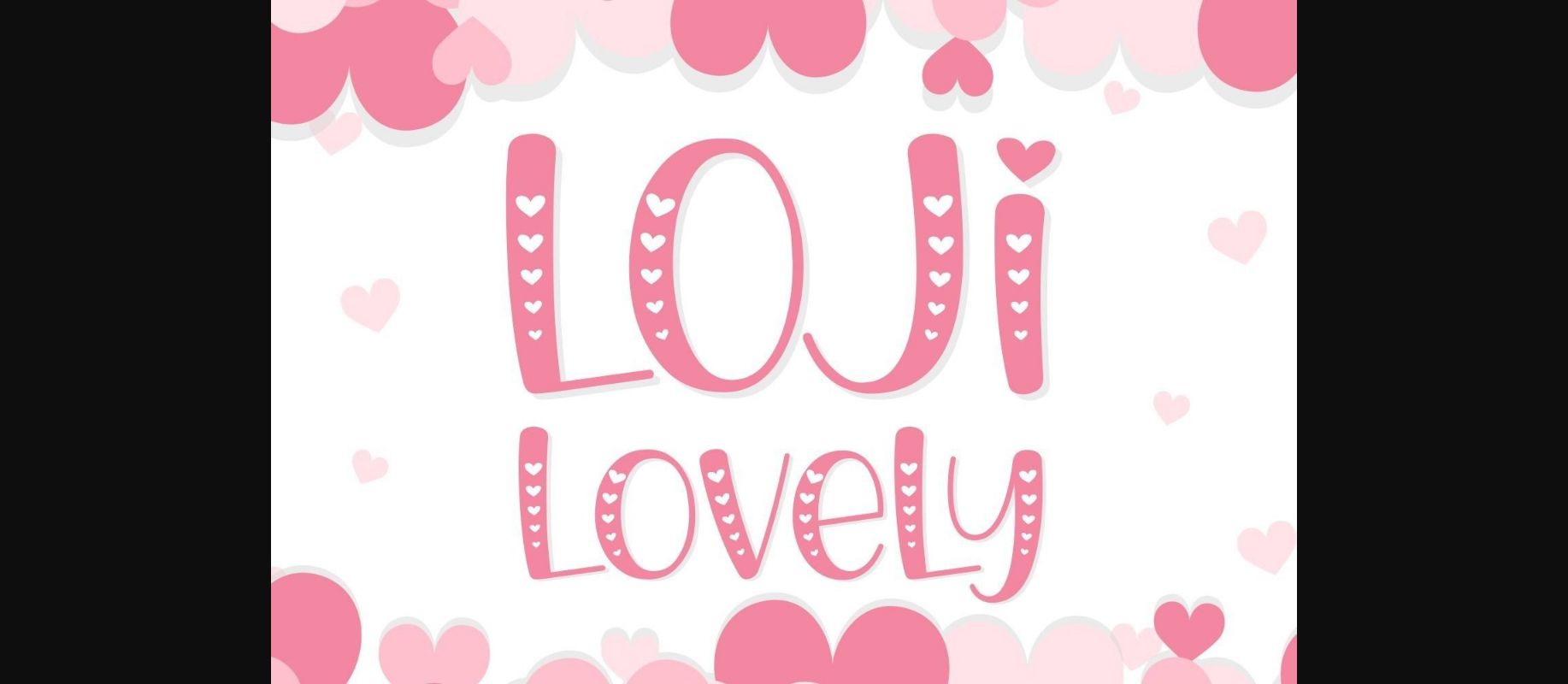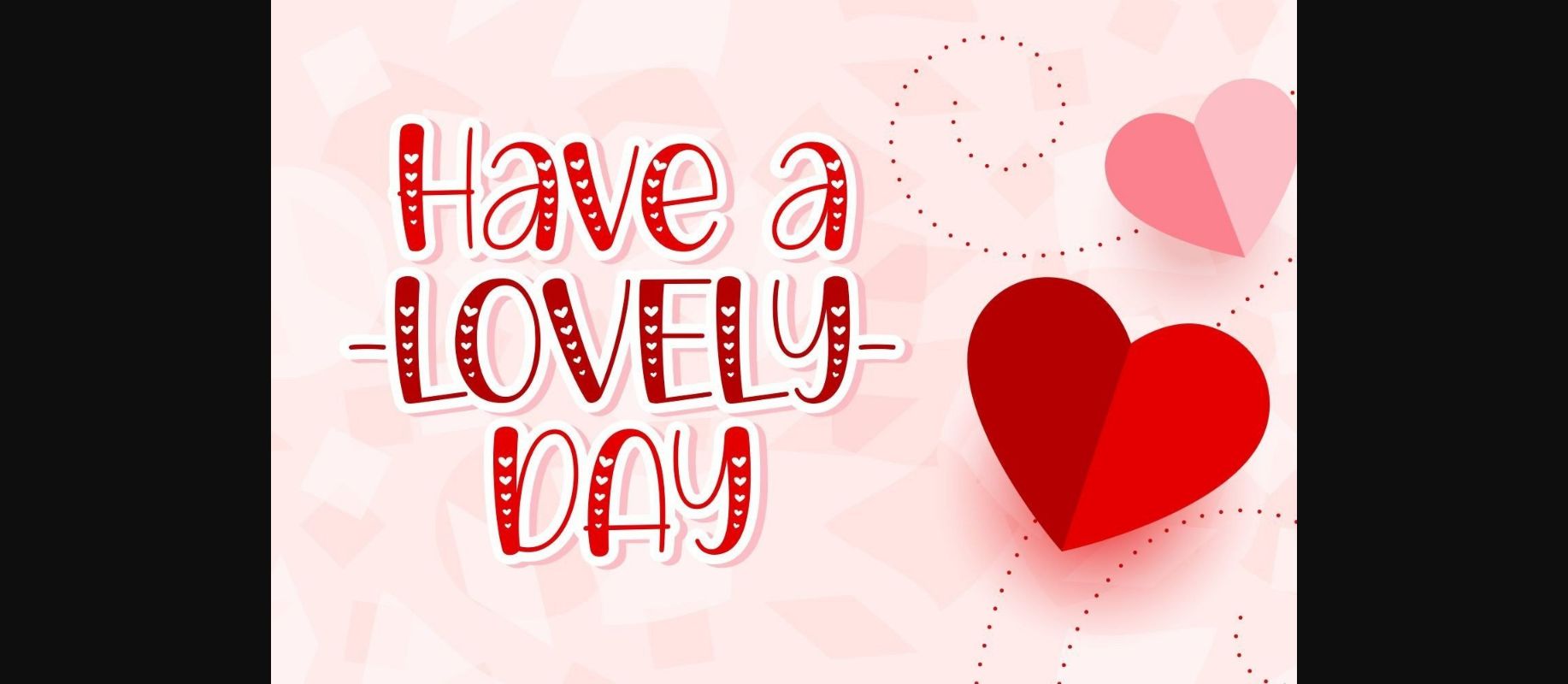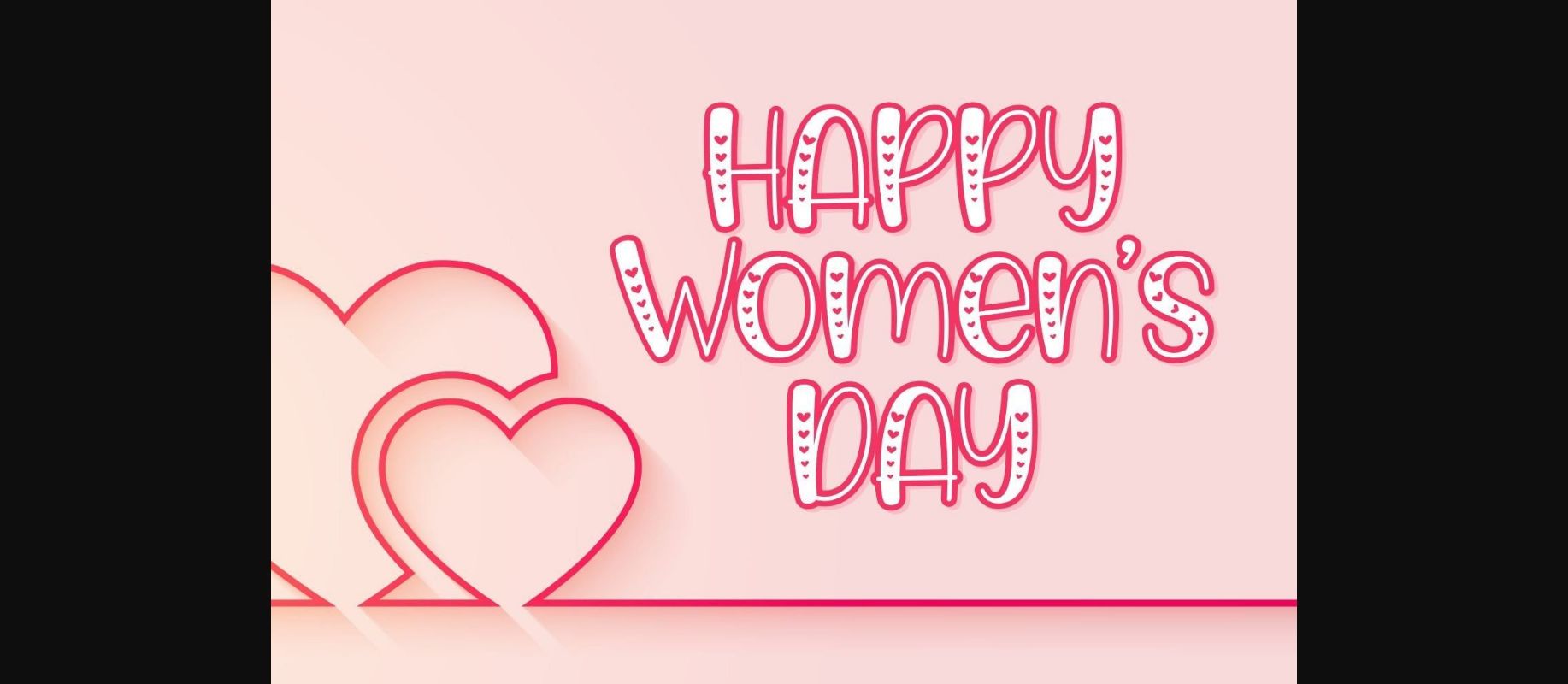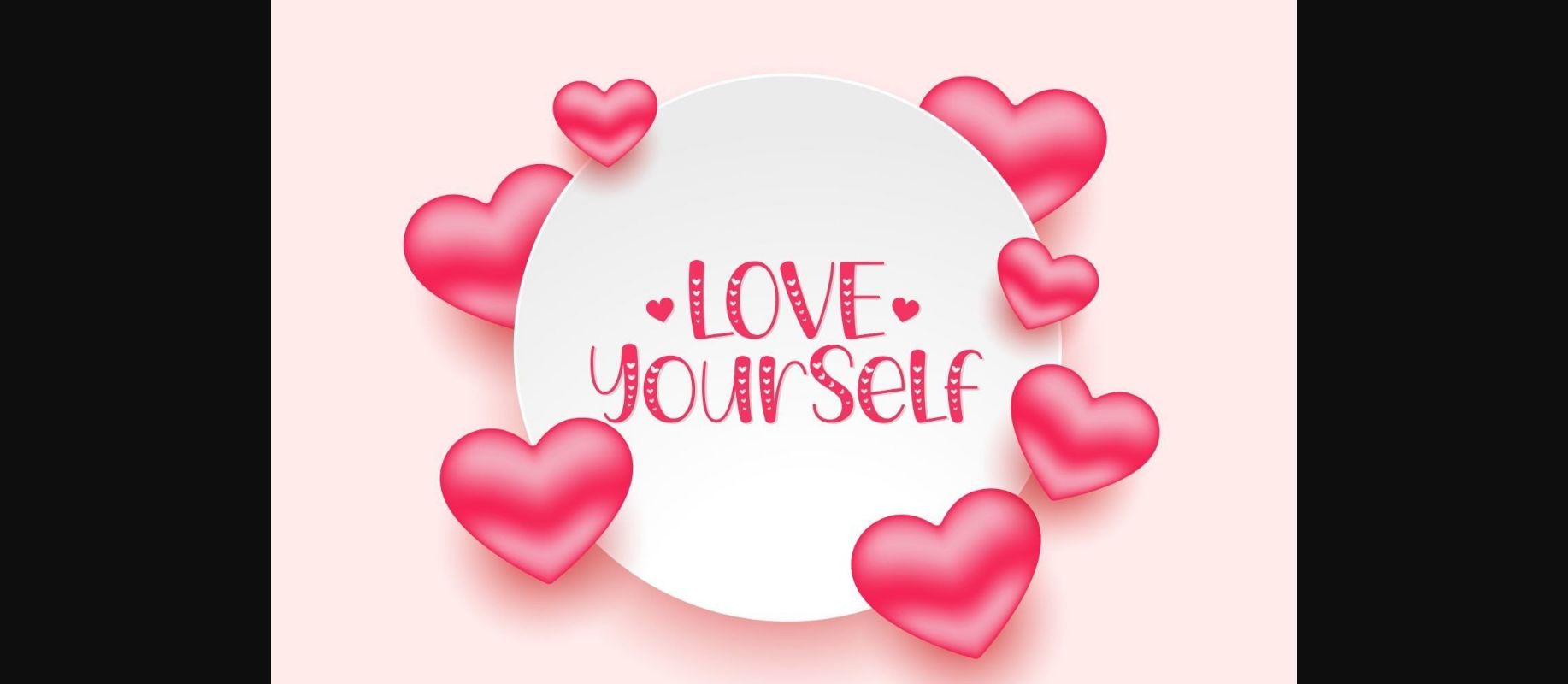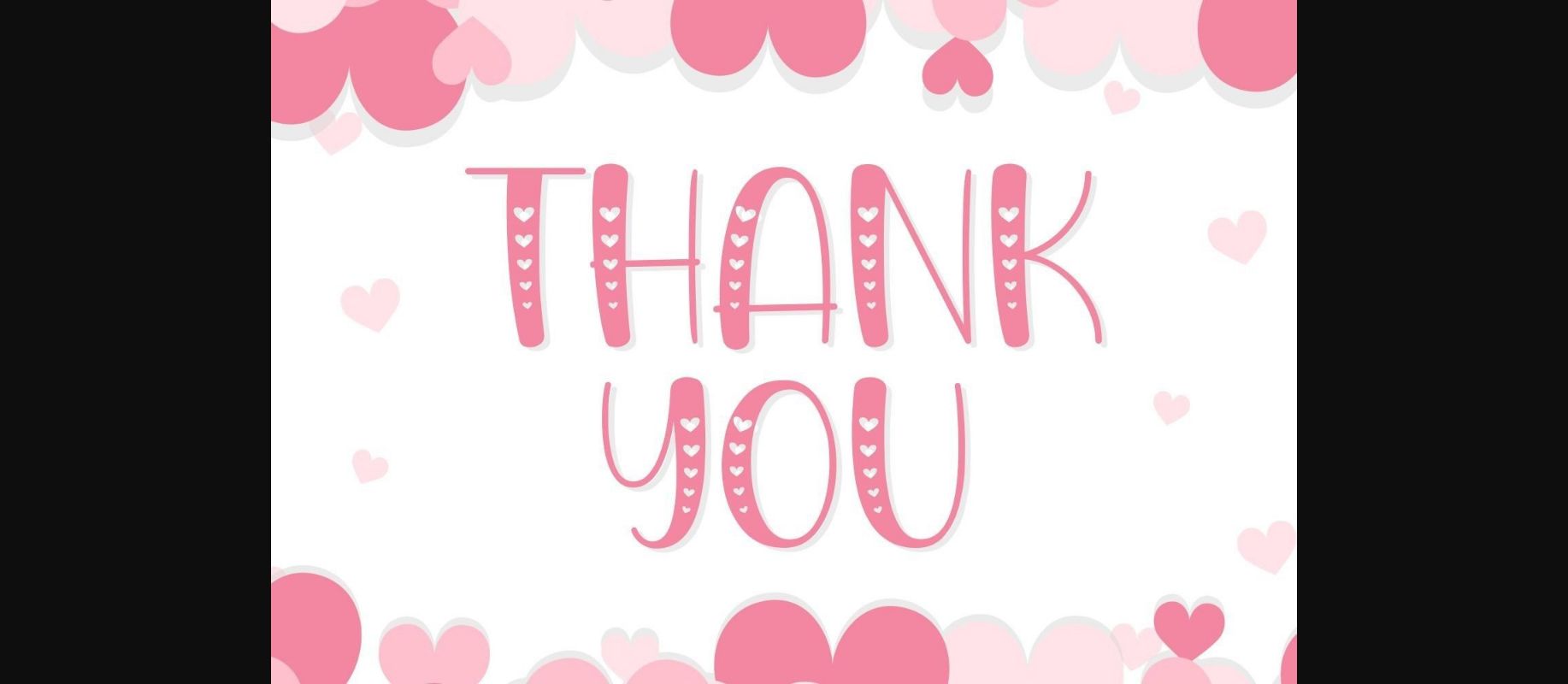
About Loji Lovely Font
Loji Lovely is a romantic decorative font with little heart ornaments. Fill your designs with love, joy, and happiness with this beautiful typeface! It is perfect for Valentine’s day projects, Mother’s day, anniversary gifts, and more.